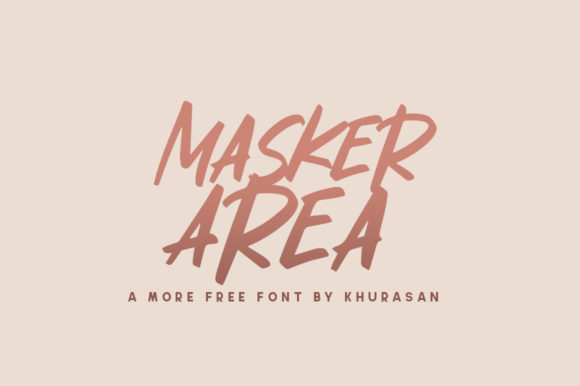
About Masker Area Font
Masker Area is a modern brushed handwritten font with a casual feel. Use it for ads, logos, branding or any other design that requires a cool look!